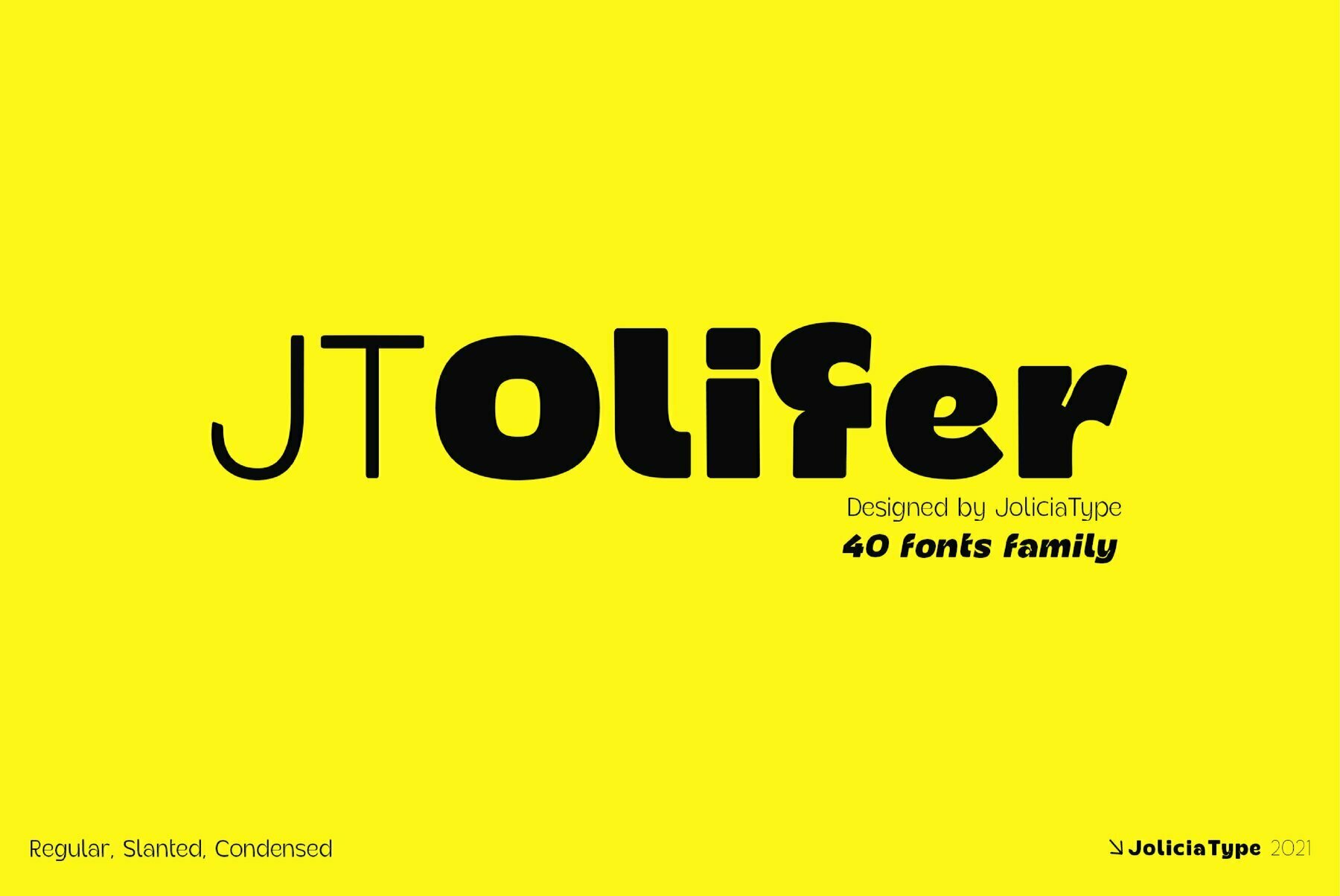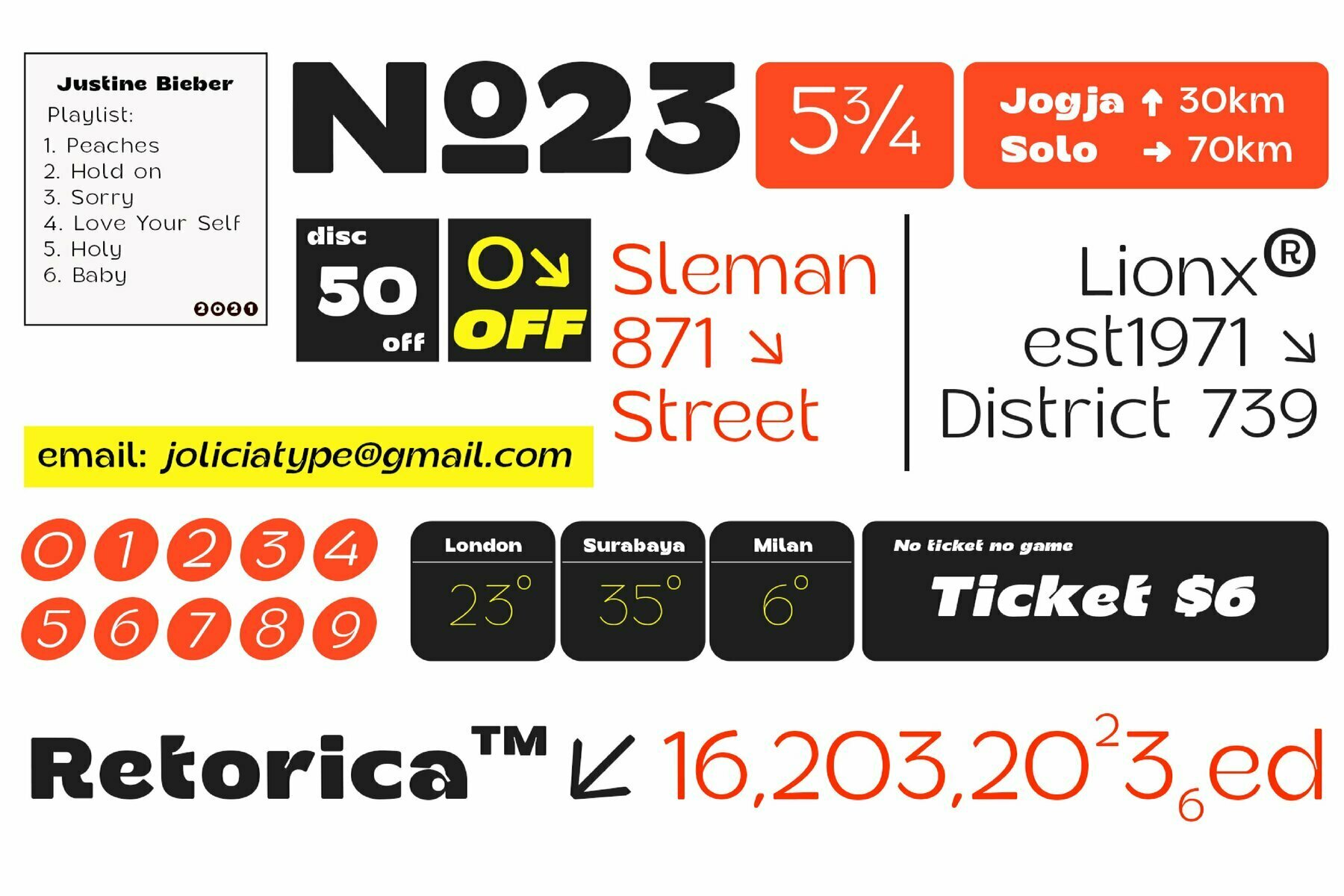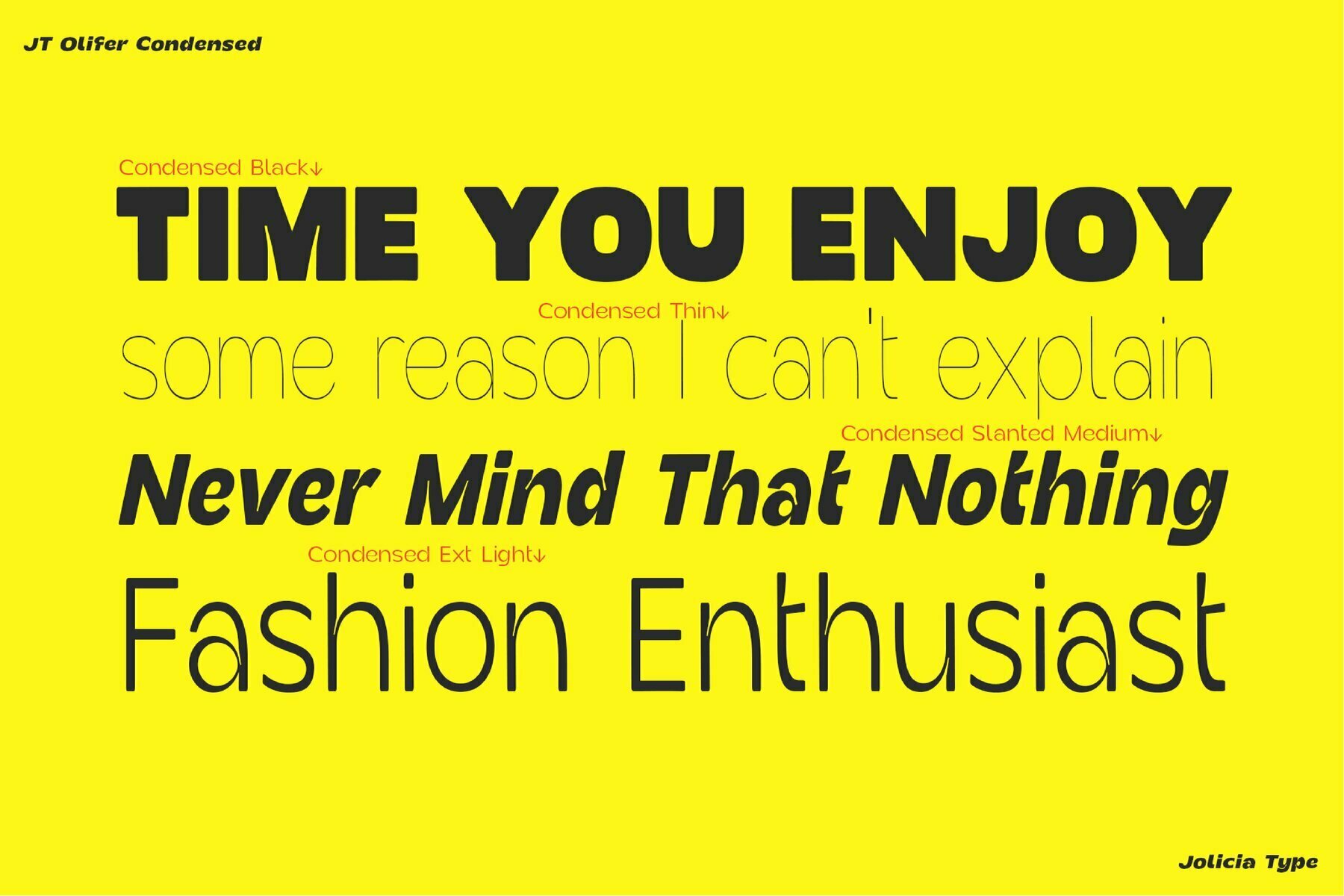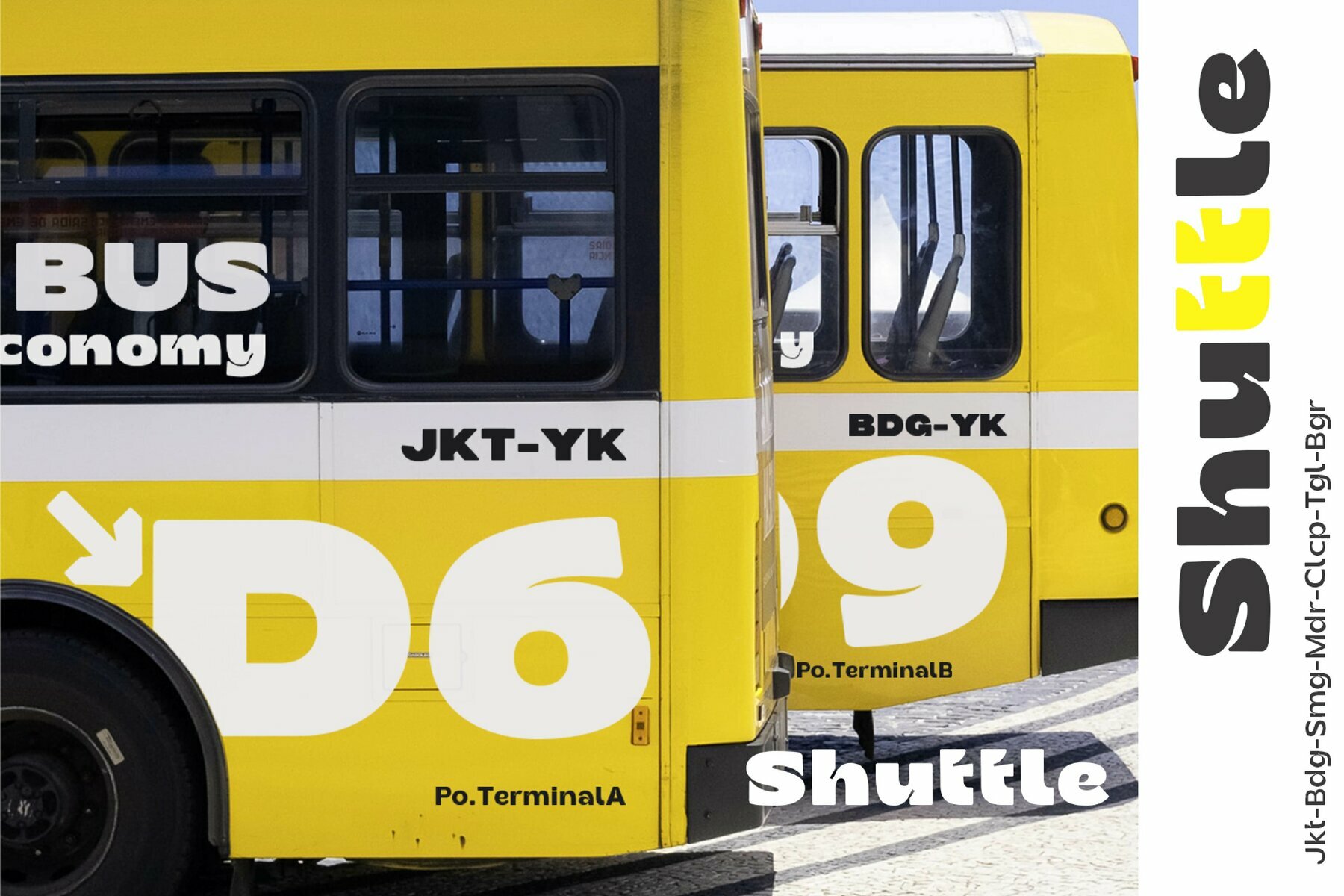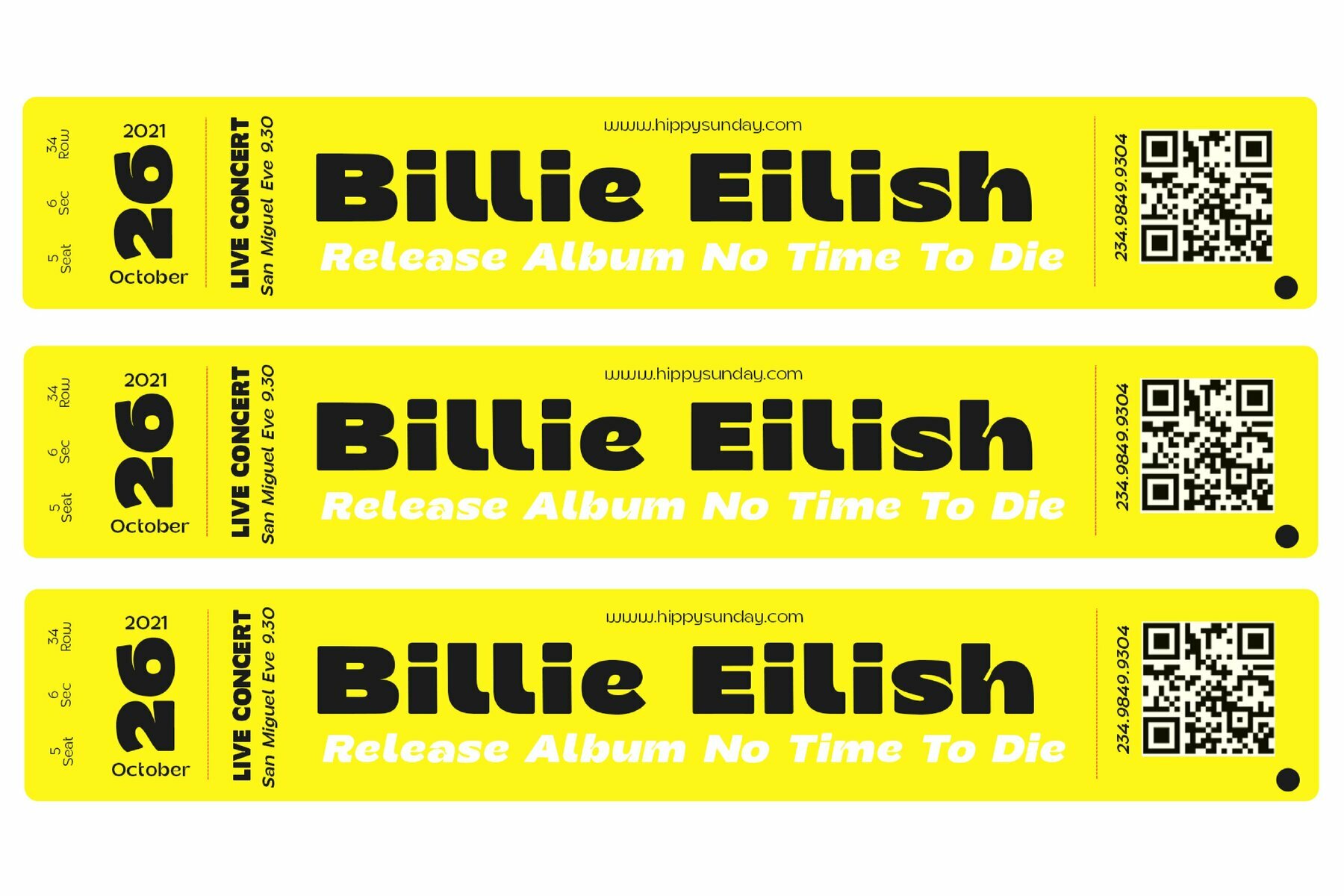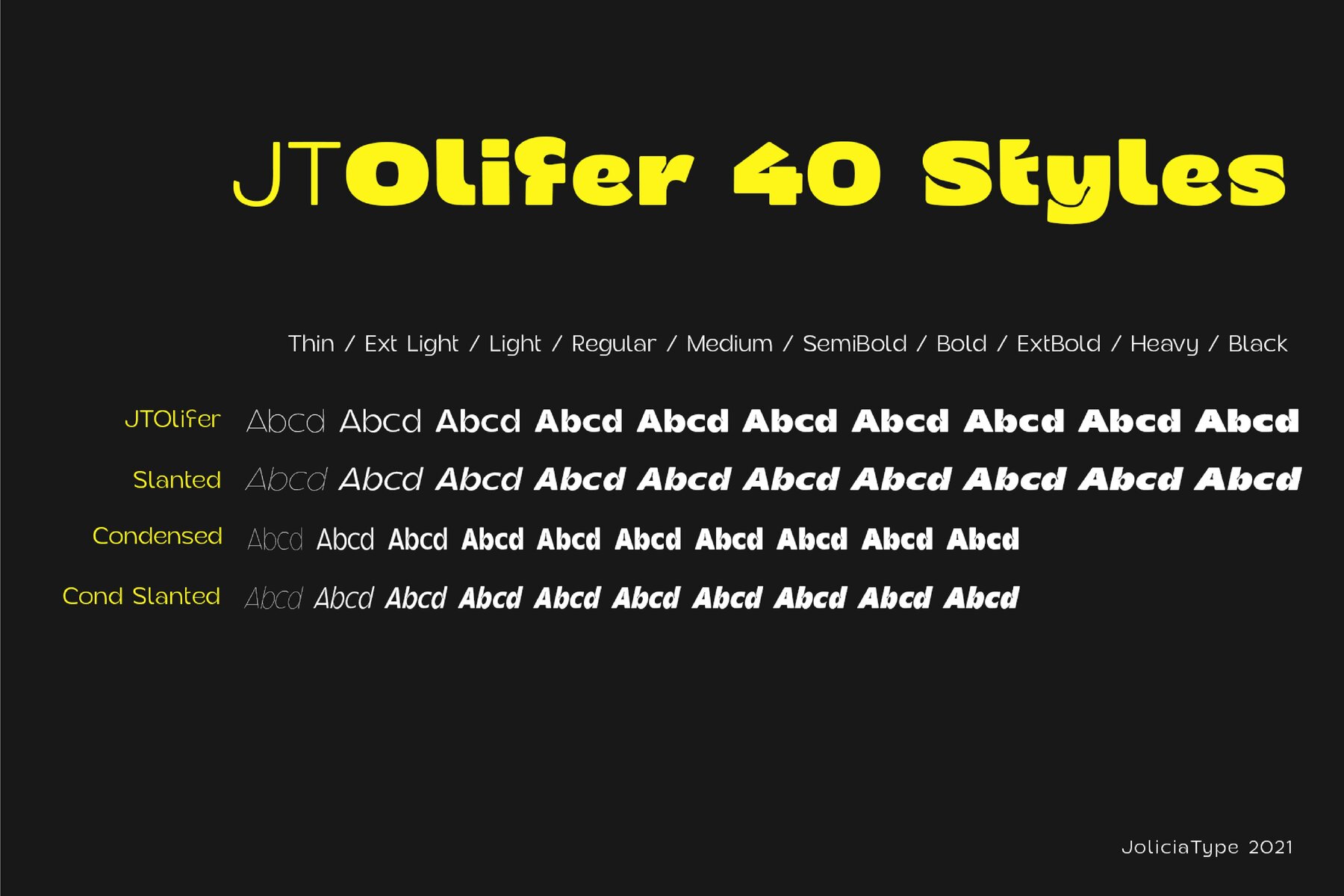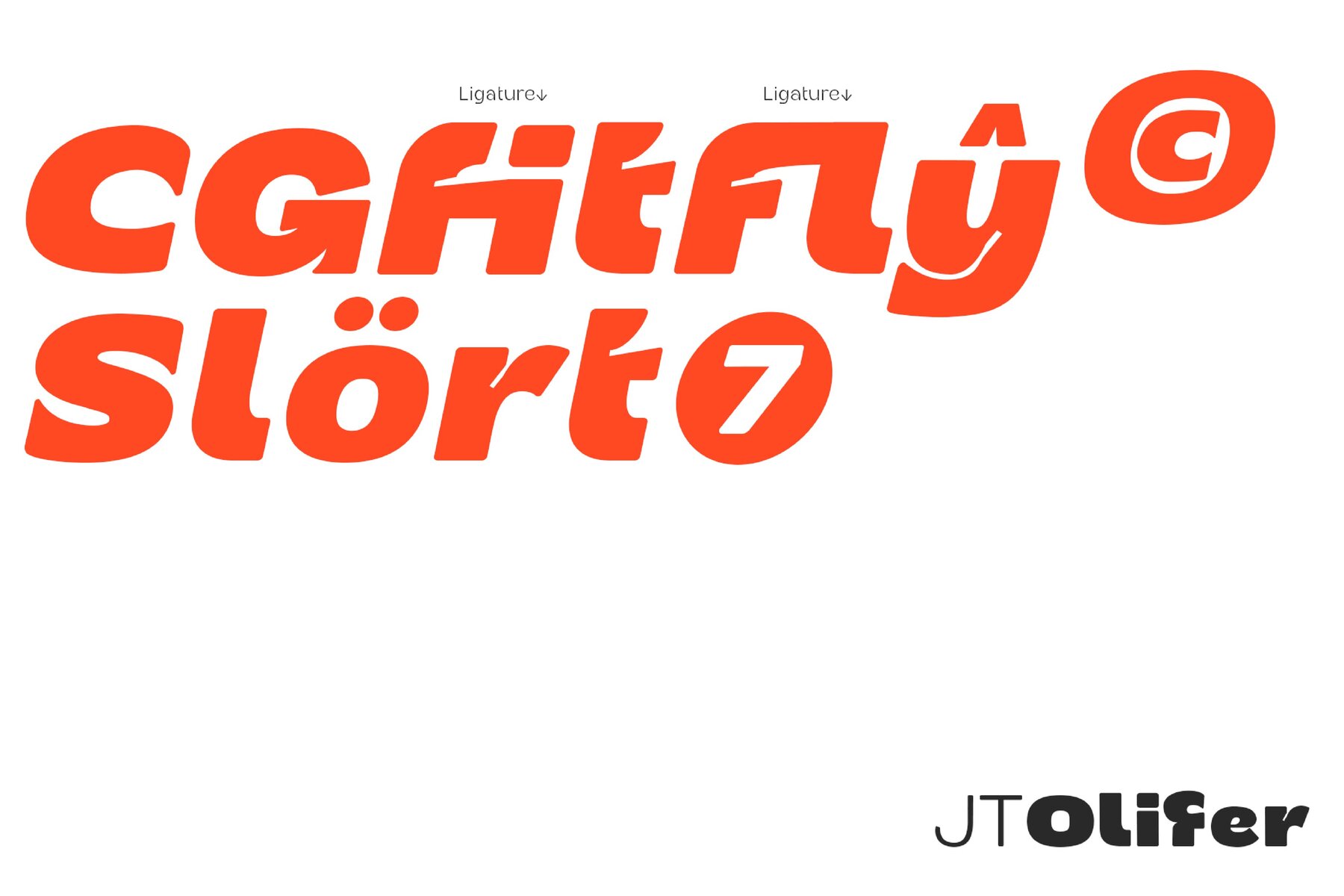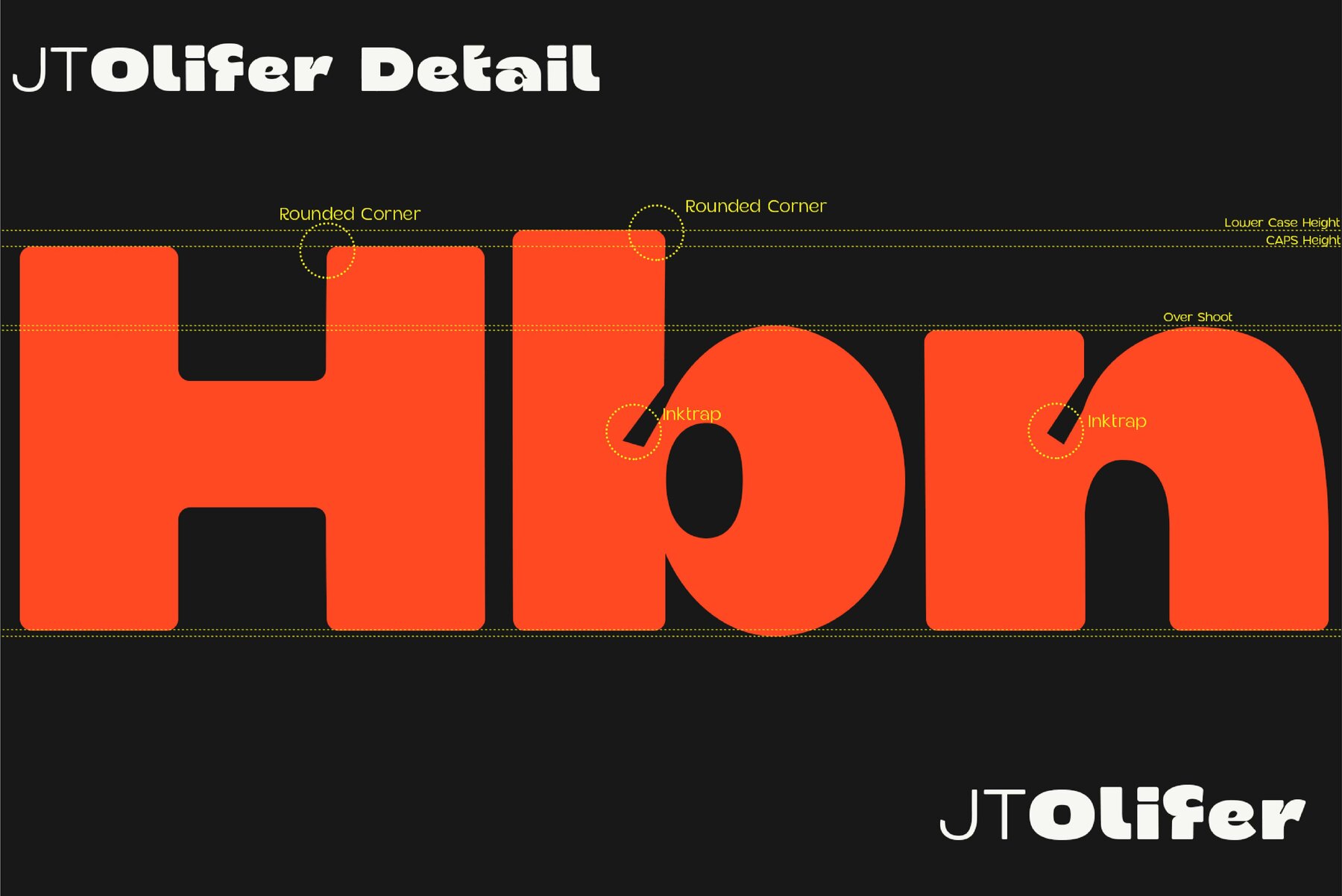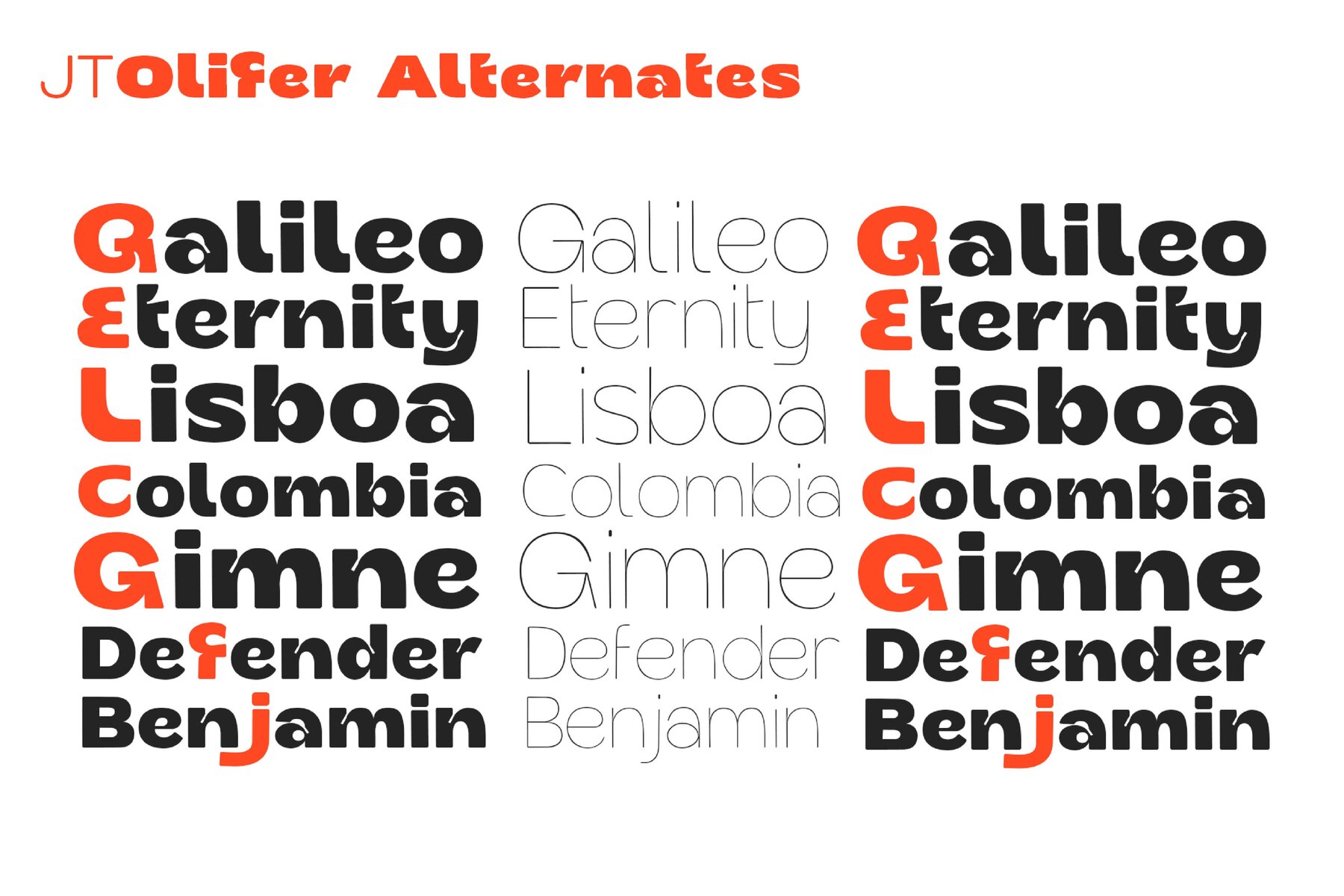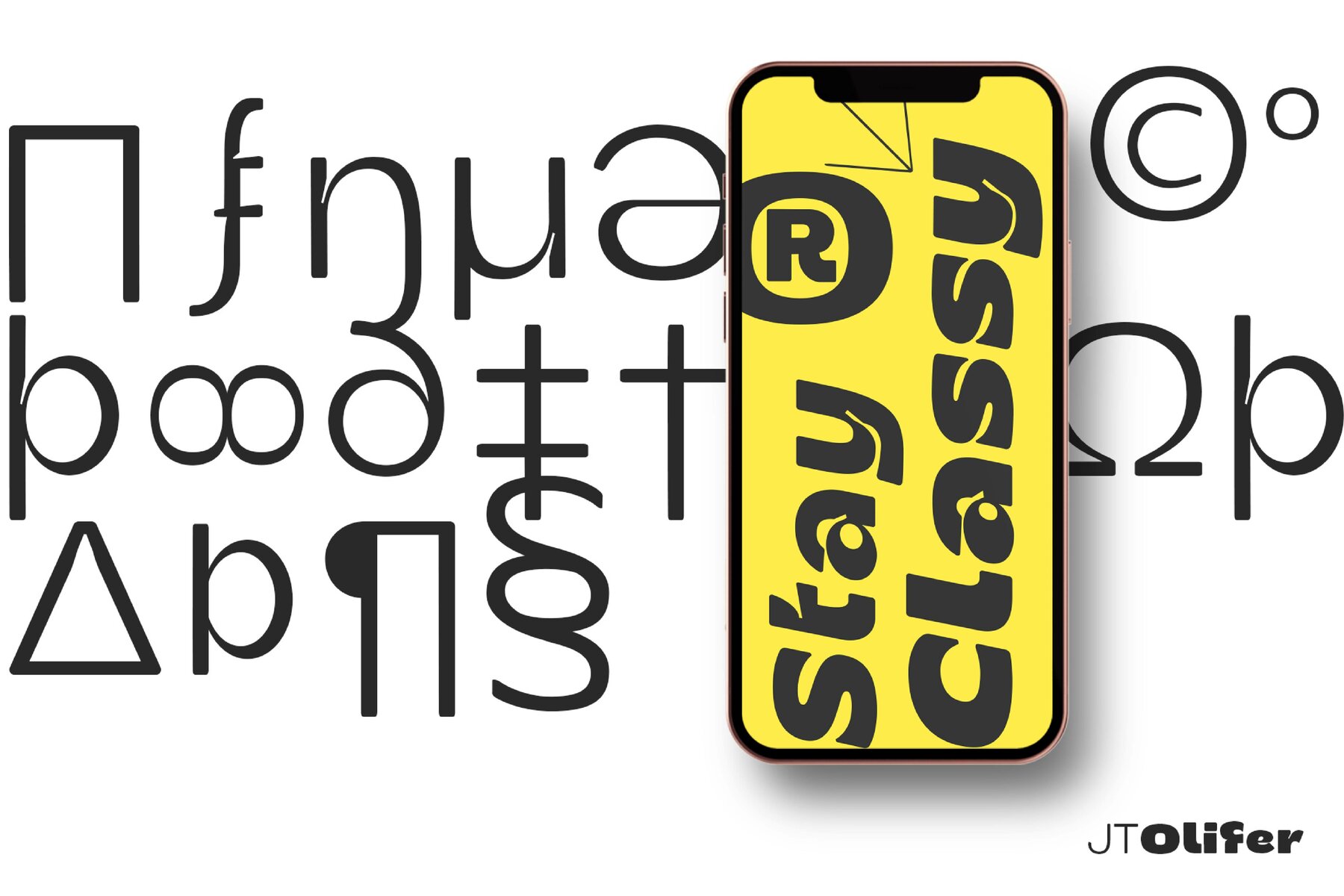
JT Olifer Font
JT Olifer is family font of Jolicia Type designed by Laire Banyu Sandi Pawenang in October 2021, JT Olifer inspired by Modern Typography developed by us in our perspective, with a typeface detail in every corner we make more rounded, and give an inktrap accent to make unique impression special in every glyph, we really consider about aspect legibility, therefore we make family font amount 40 to assist the selection according to visual needs.
Font type of JT Olifer contains several nuances that combain aesthetic, contemporary and modern, furthermore we make some alternates glyph that have a friendly and subtle impression, for example 'f' the alternate of this name our font we designed is more circular and smooth.
JT Olifer has a total of 465 letters with regular, slanted and condensed styles support in 90 languages :